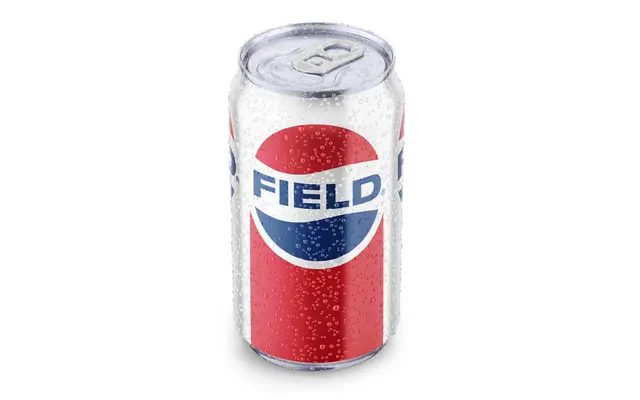
Field Gothic specimen from Signal
A large grotesque family organised across three widths and numerically coded weights, drawing on American gothic signage and print traditions.
Field Gothic spans Narrow, Standard and Wide subfamilies, each offering a grid of numerically designated styles with matching italics, producing a family of considerable breadth for systematic typographic work. The numbering system replaces conventional weight names, giving designers a structured vocabulary for managing typographic hierarchies across widths. Suited to editorial, identity and wayfinding contexts where consistent tone across a wide range of settings is needed.
A gothic sans-serif family with numbered weight and width variants across Narrow, Standard and Wide subfamilies, consistent with American grotesque vernacular traditions.